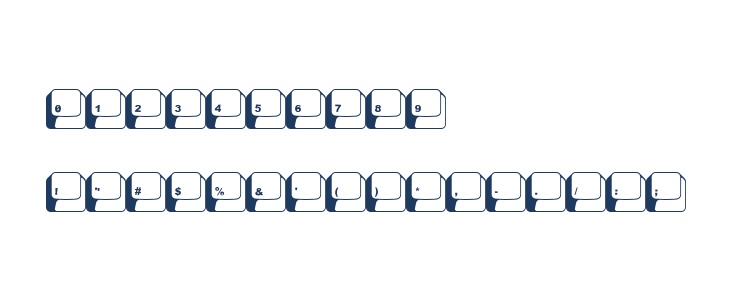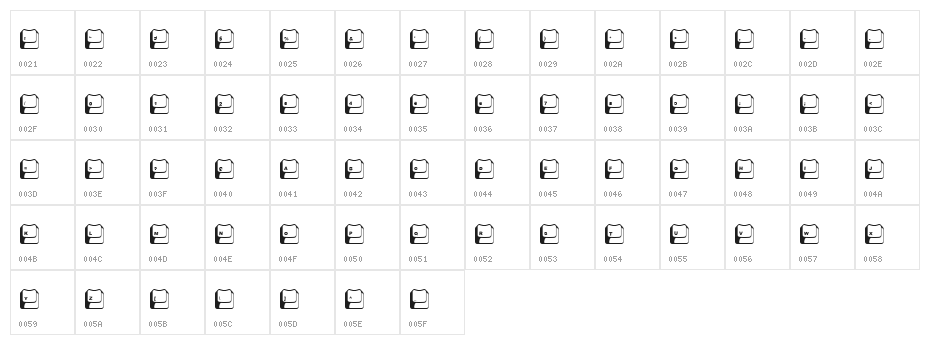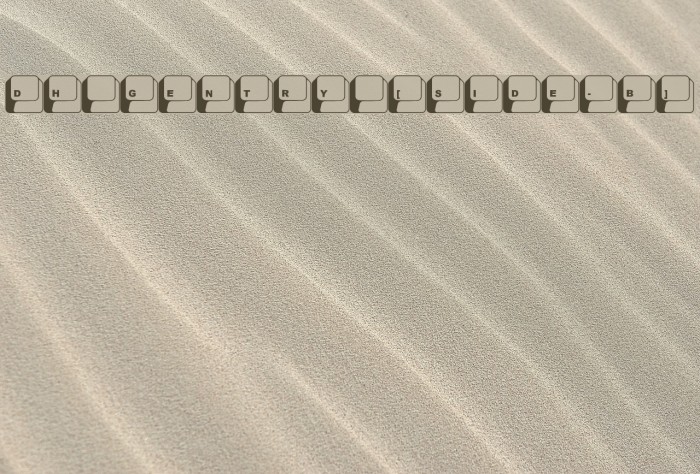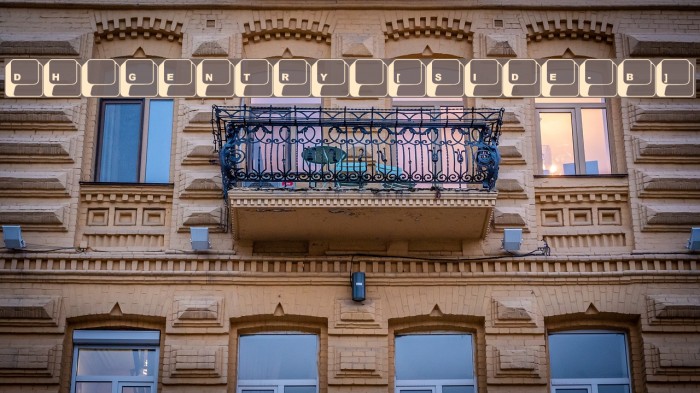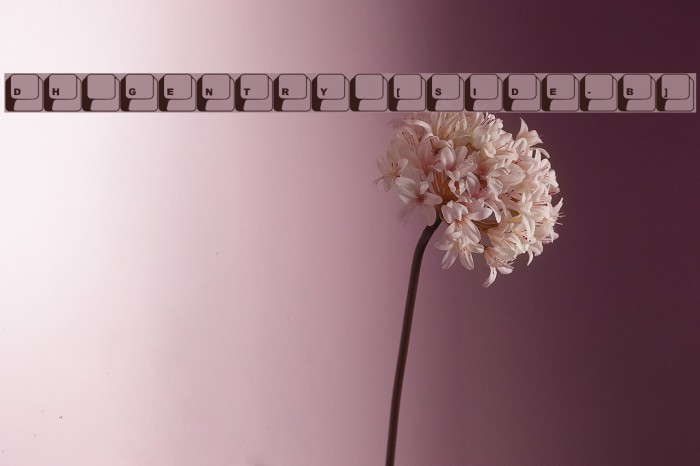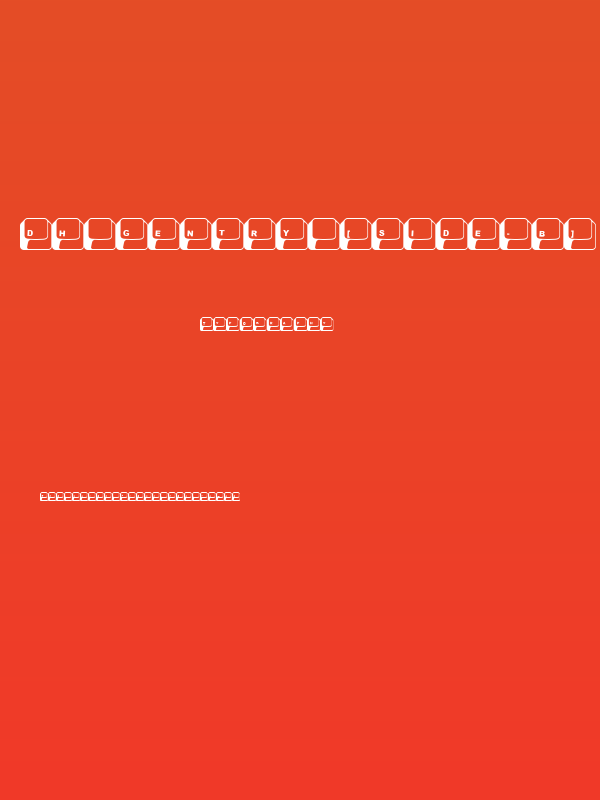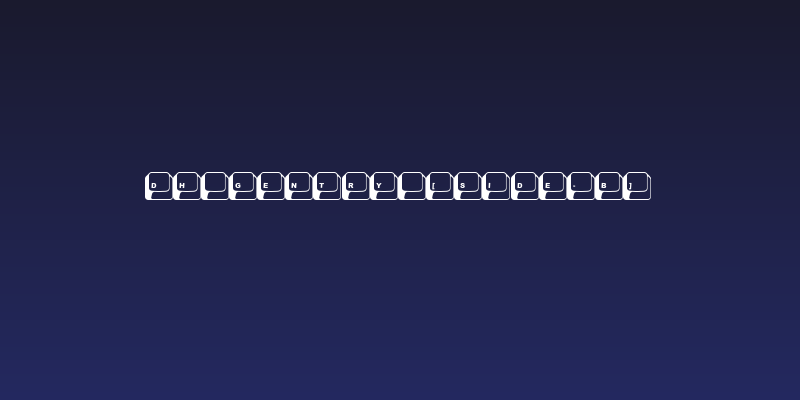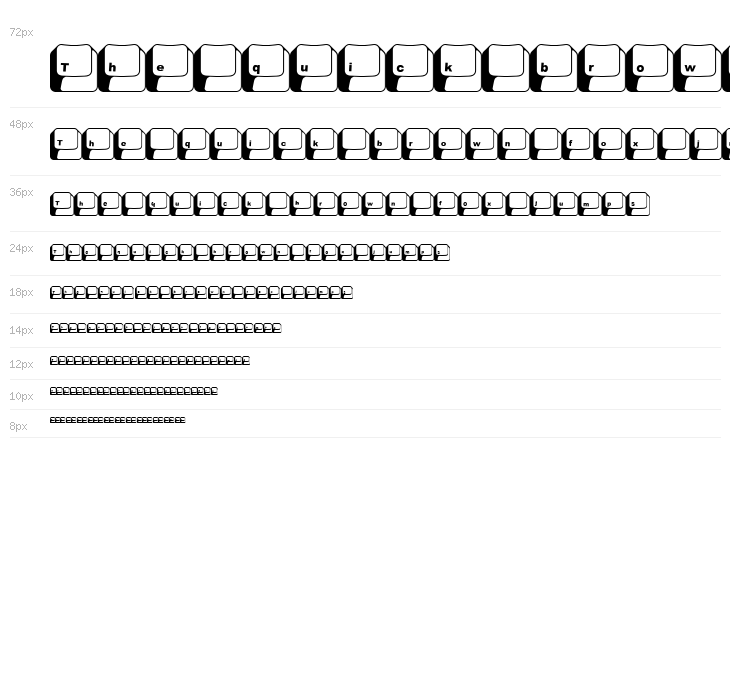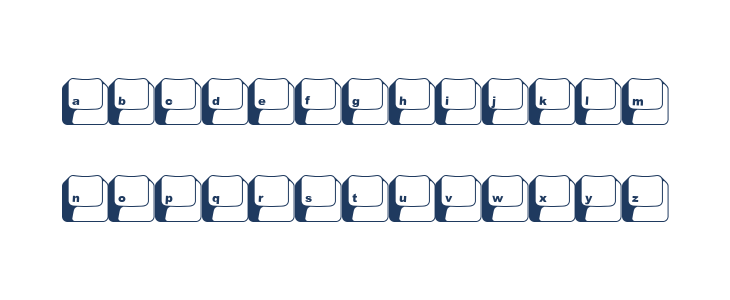
DH GENTRY [SIDE-B] Font
DH GENTRY [SIDE-B] Description
This font features a unique design where each character is enclosed within a rounded square, resembling keys on a keyboard. The characters are bold and have a consistent thickness, providing a strong visual impact. The uppercase and lowercase letters maintain a uniform style, with slight variations to distinguish them. The numbers and special characters follow the same design principle, ensuring a cohesive look across all elements. The font's geometric and structured appearance makes it stand out, while the rounded edges add a touch of softness.
| Use Case | Logos, Headlines, Digital Interfaces |
| Proposed Projects | Ideal for tech-related designs, digital interfaces, gaming graphics, and modern branding projects. |